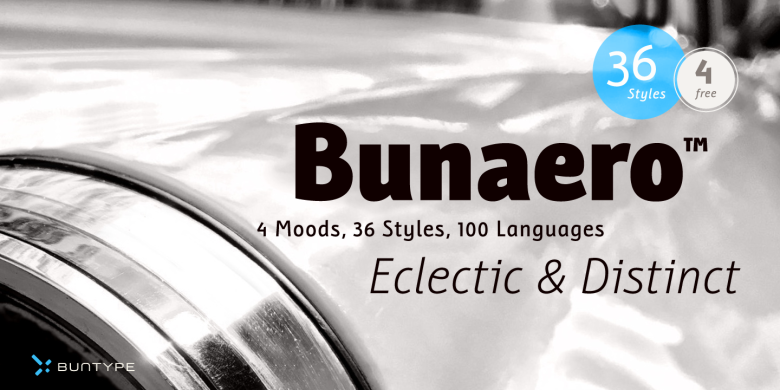
Bunaero Pro™ Font Family
Introducing Bunaero Pro™ Font Family! Bunaero Pro designed by Buntype. Buntypes Bunaero™ combines classical and contemporary characteristics to a unique and distinctive font family with extravagant but also harmonious appearance. The characters are clear, open and sometimes bellied. Especially the caps have a very high waistline.